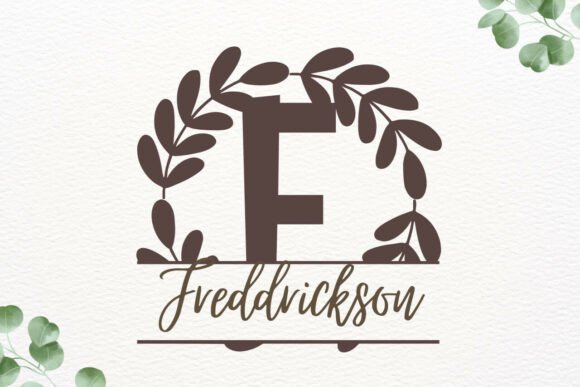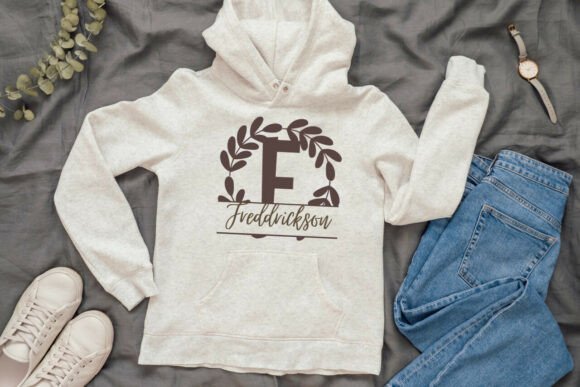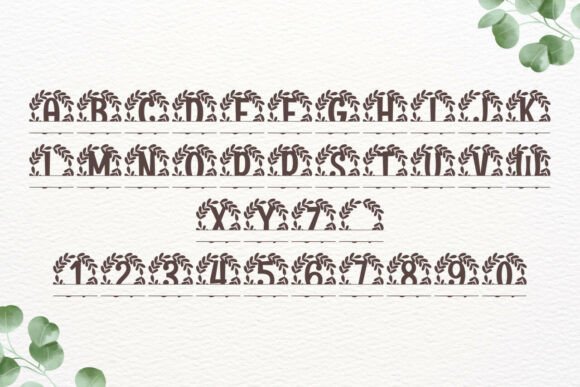
Introduction to Ornatique Split Monogram Font
Have you ever found yourself in the midst of a creative project, struggling to come up with the perfect design element to tie everything together? Perhaps you’re working on a wedding invitation suite, and you want to add a touch of elegance to the stationery. Or maybe you’re a graphic designer looking for a versatile font to use in your next project. Whatever the case may be, you’re in luck – we’re about to introduce you to the Ornatique Split Monogram Font, a game-changing design resource that’s sure to elevate your creative endeavors.
This high-quality font is designed to turn initials into stunning nameplates in a matter of seconds, making it the perfect addition to any project. With its clean center split and balanced spacing, the Ornatique Split Monogram Font is ideal for creating polished and refined designs that require minimal effort. Whether you’re working on a family sign, a wedding gift, or a boutique packaging project, this font is sure to deliver premium results.
Key Features of Ornatique Split Monogram Font
- High-quality, intricate design perfect for creative projects, weddings, and special occasions.
- Comes with a transparent background, allowing for easy customization and seamless integration into various design elements.
- Designed in a modern, elegant style, ideal for monogram designs, logos, and branding materials.
Honest Review: Ornatique Split Monogram Font
I recently had the opportunity to work with the Ornatique Split Monogram Font, and I must say it’s been a game-changer for my design projects. This high-quality font has a unique, elegant design that adds a touch of sophistication to any creative project.
One of the standout features of this font is its versatility. It can be used for a variety of purposes, from wedding invitations to branding materials, making it a valuable resource for designers.
- ✨ Unique and elegant design that adds a touch of sophistication to any project.
- ✨ High-quality font that is perfect for creative projects.
- ✨ Can be used for a variety of purposes, making it a versatile design resource.
- ⚠️ Limited use for text-heavy projects due to its ornate design.
- ⚠️ May require additional design elements to create a transparent background.
Overall, I’m impressed with the Ornatique Split Monogram Font and would highly recommend it to designers looking for a high-quality, unique font for their creative projects. The free download is a bonus, making it an accessible design resource for designers of all levels.
The Ornatique Split Monogram Font is a high-quality design resource ideal for creative projects. It can be used for various purposes, including branding, invitations, and social media graphics.
To get the most out of the Ornatique Split Monogram Font, use it on a transparent background to create a beautiful and elegant design. You can also combine it with other design elements to create a unique and eye-catching look.
The Ornatique Split Monogram Font is commonly used for:
Birthday party invitations and decorations
Business branding and marketing materials
Q: Can I customize the Ornatique Split Monogram Font for my specific design needs?
While the Ornatique Split Monogram Font is designed to be versatile, it’s not a fully editable font. However, you can use it as a starting point and customize it using design software like Adobe Illustrator or Photoshop. Keep in mind that any modifications may affect the font’s original design and functionality.